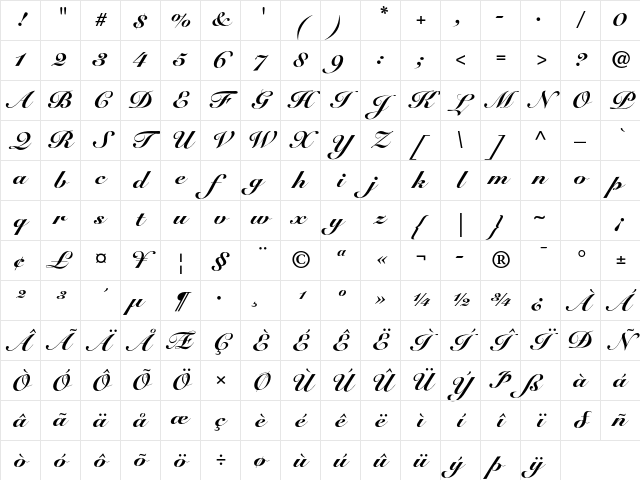
Snell Roundhand LT Std Black Script
Style: Black Script
Designer: Matthew Carter
Design Context for Snell Roundhand LT Std
Snell Roundhand LT Std flows with the natural rhythm of handwritten lettering, making it ideal for designs that call for warmth and personal expression. Its slender proportions lend an understated elegance to any composition.